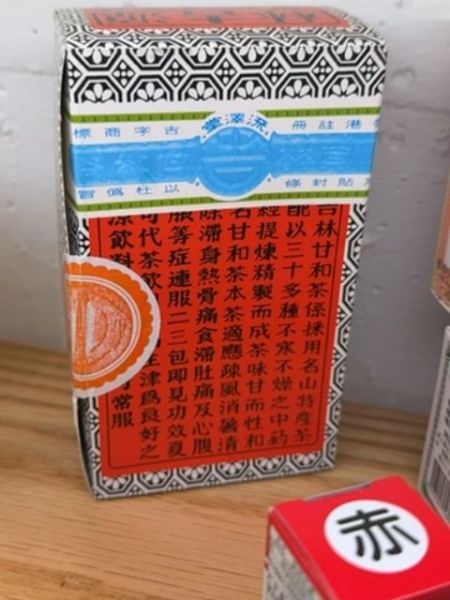
Ganmaicha
Ganmaicha is a type of Japanese herbal tea known for its soothing properties and health benefits, traditionally consumed for digestive aid.
The typography on the package utilizes traditional Japanese characters, likely employing a serif style that enhances readability while exuding a sense of cultural heritage. The choice of typeface aligns with the product’s traditional roots, reflecting its historical significance and timeless appeal.
The packaging features a bold red background with intricate black and white patterns, creating a visually striking appearance. The use of a blue band across the top adds a contrasting color element that catches the eye. A seal-like emblem on the packaging adds an element of authenticity and tradition.